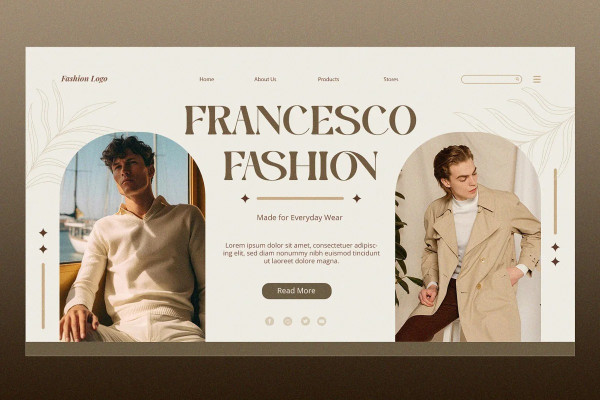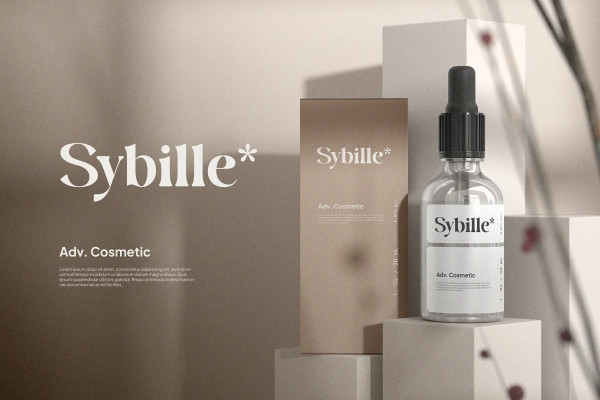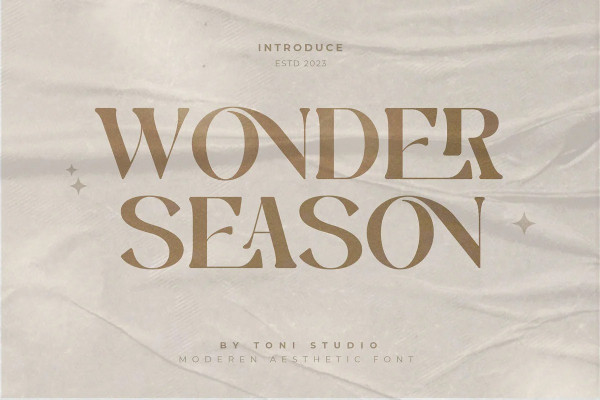
Wonder Season Font
Wonder Season Font is a modern bold serif font designed with natural, beautiful curves, to add personality and style to your text. can help you complete a variety of projects such as luxury brand logos, journals, business cards, titles, products, social media posts, web and many more that will definitely make your designs stand out with their modern appeal. enjoy the beauty of WONDER SEASON.